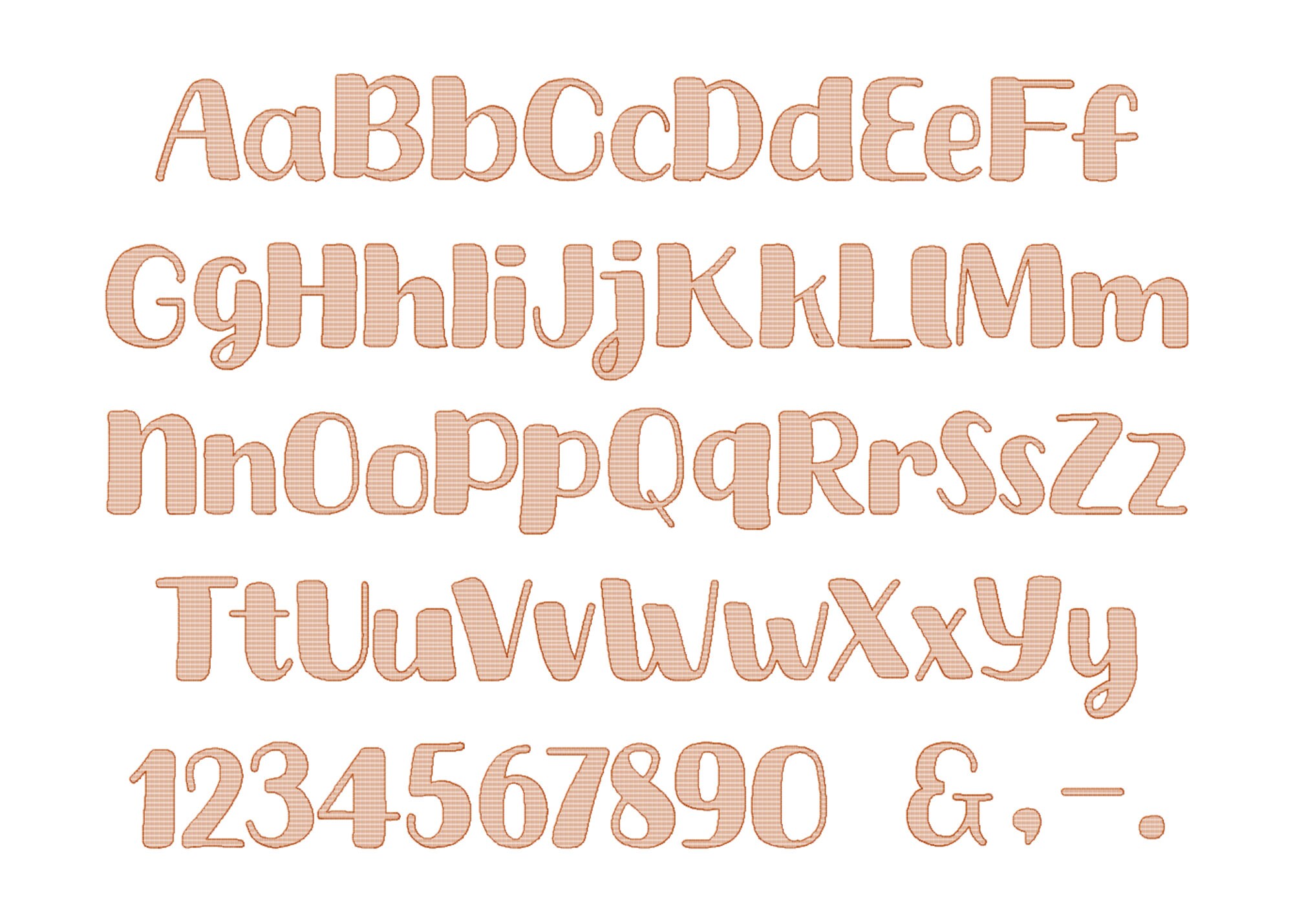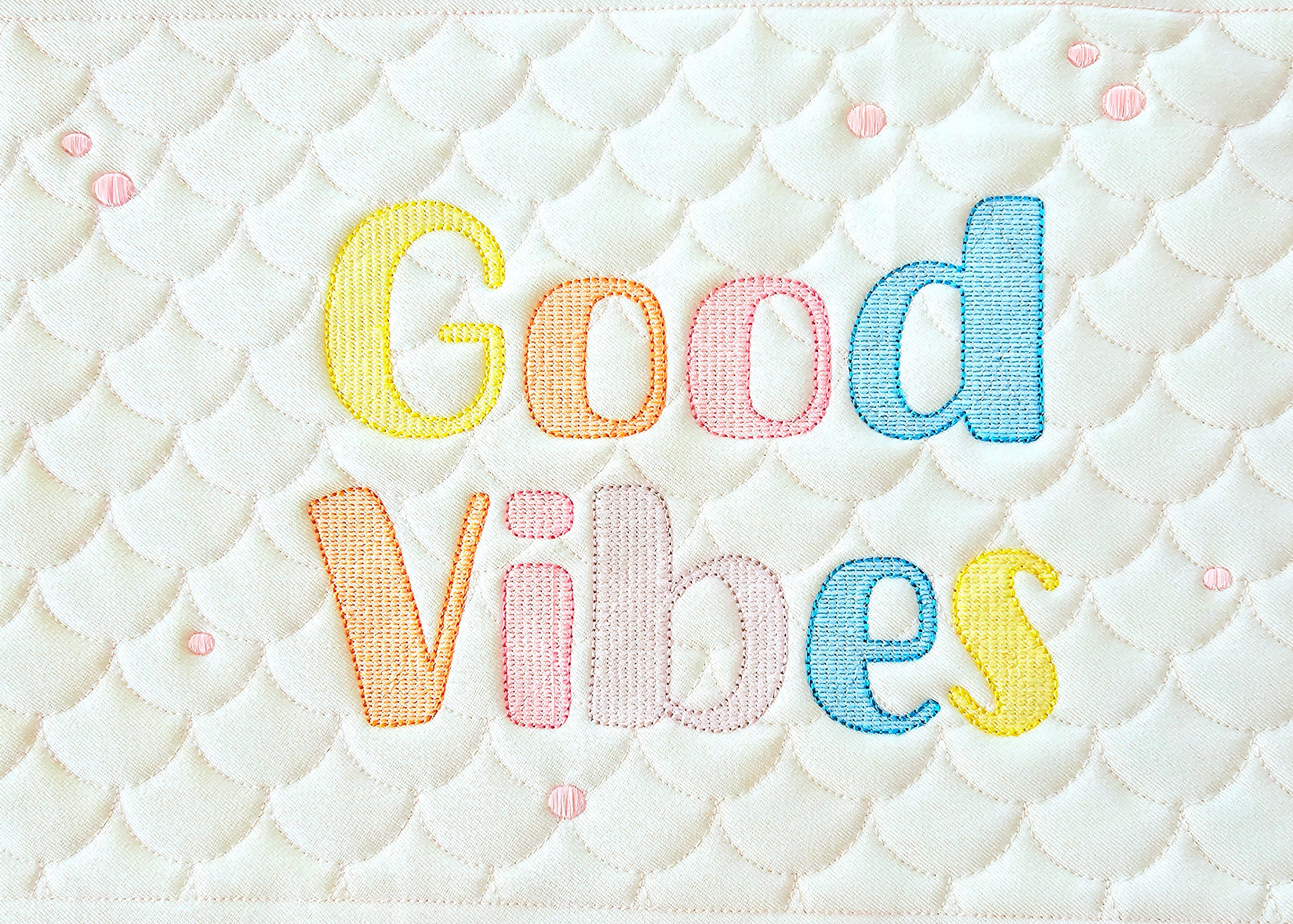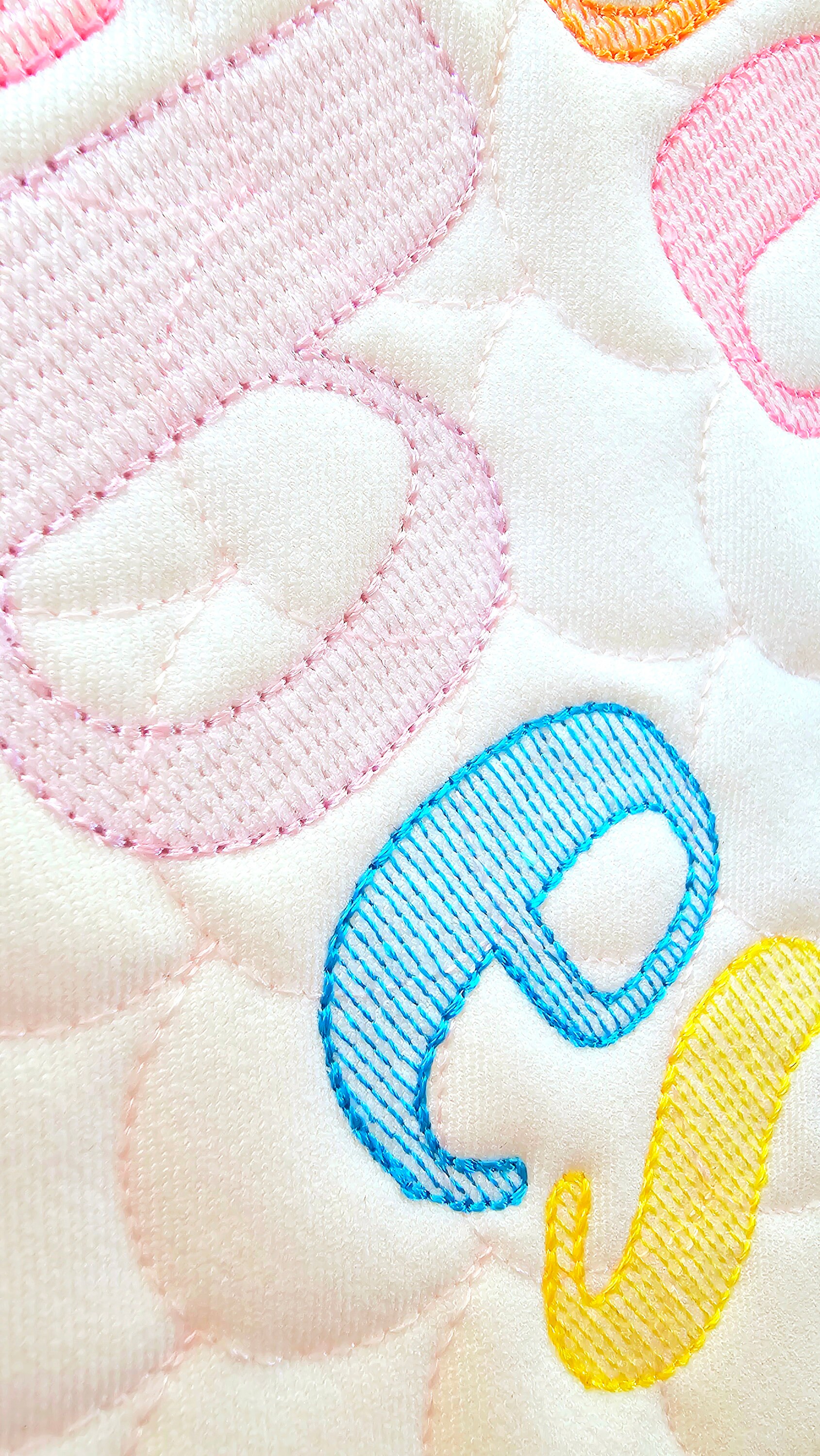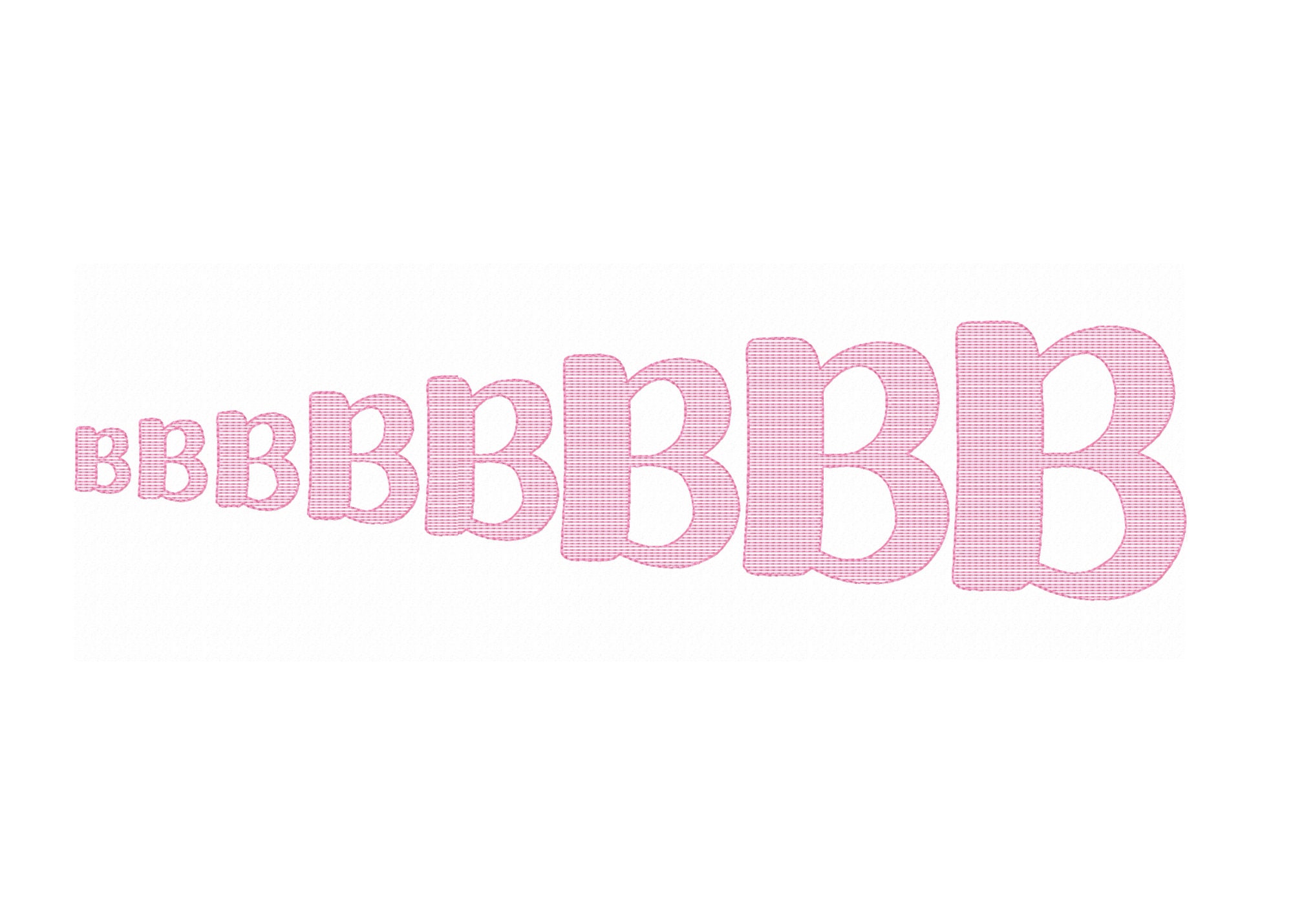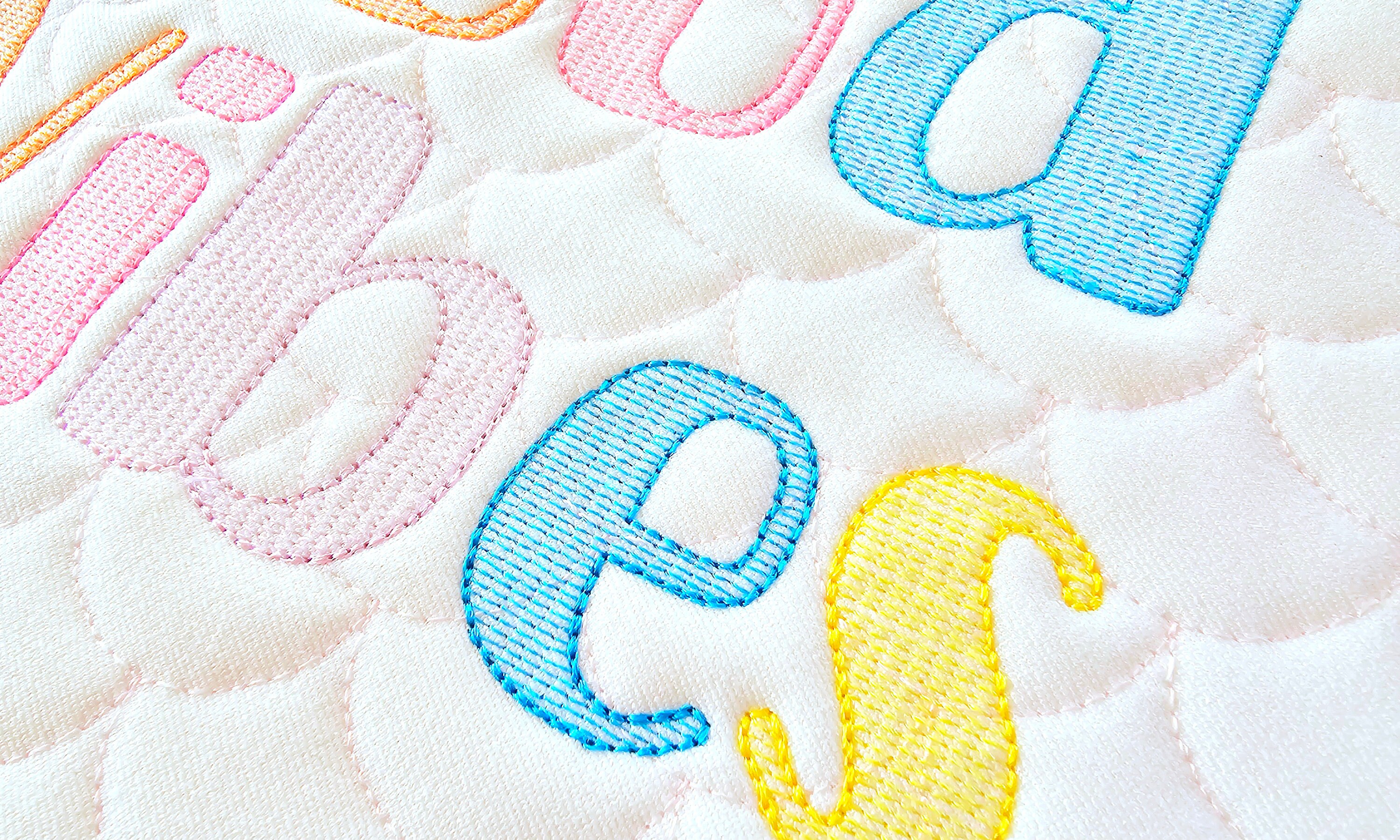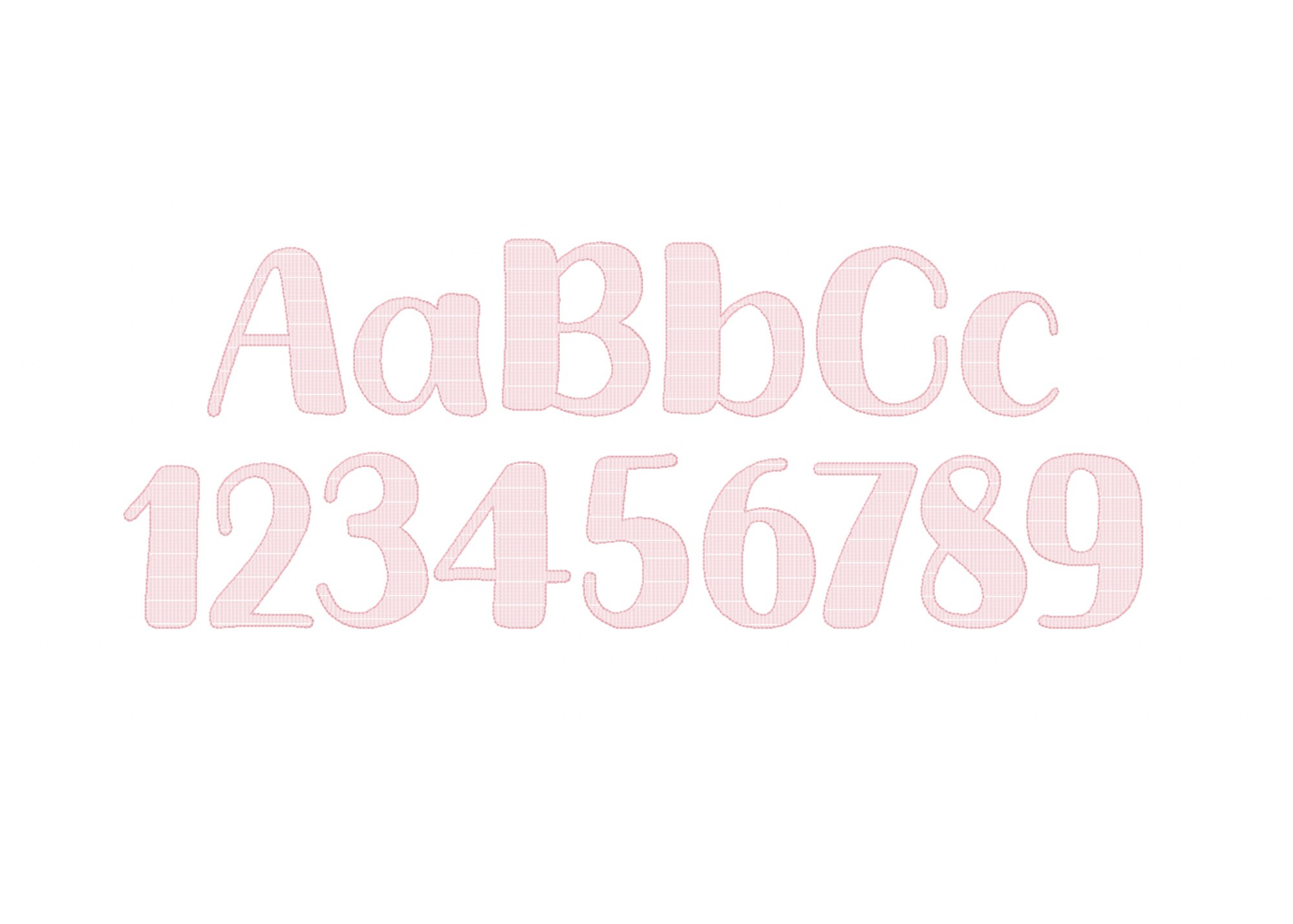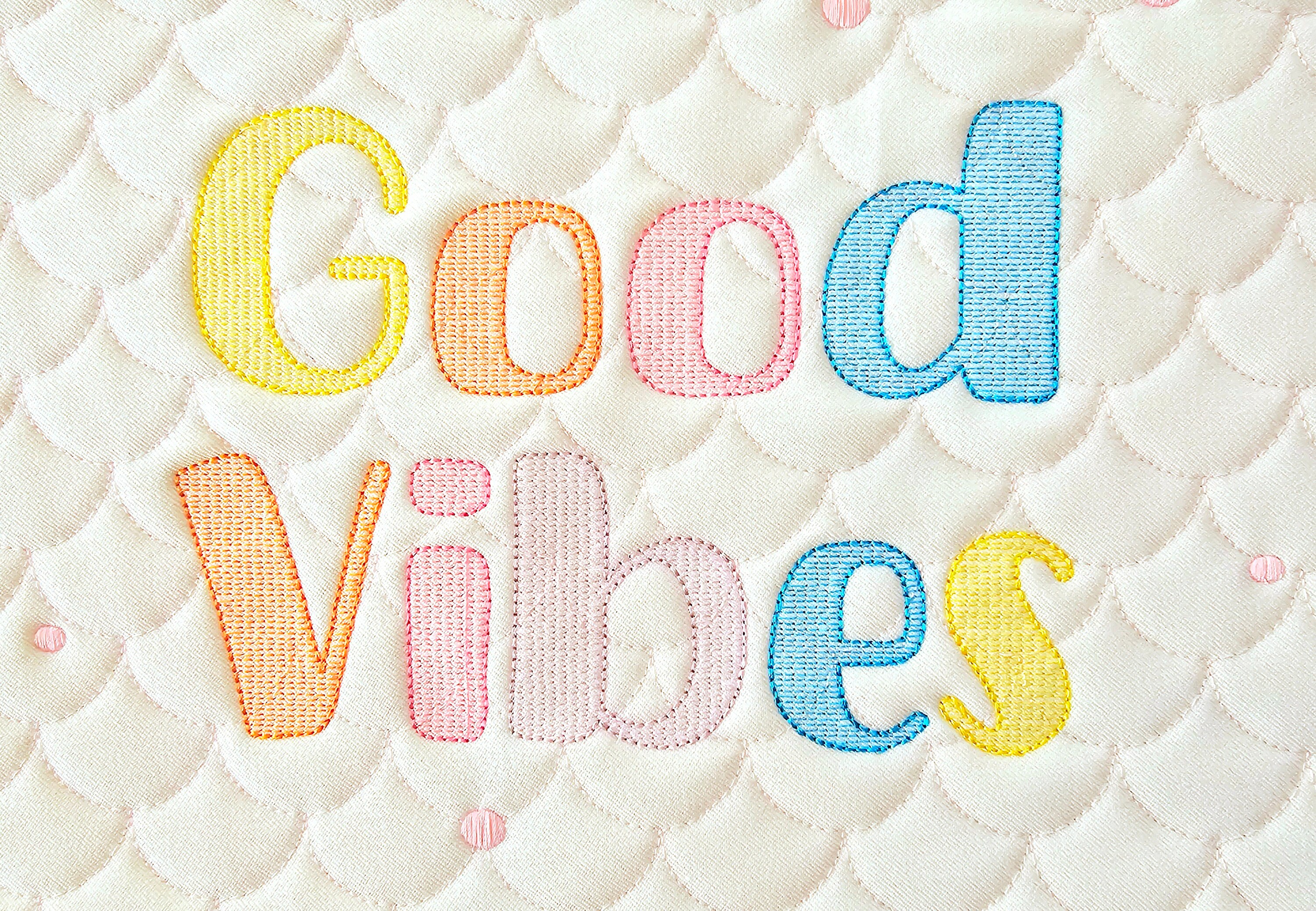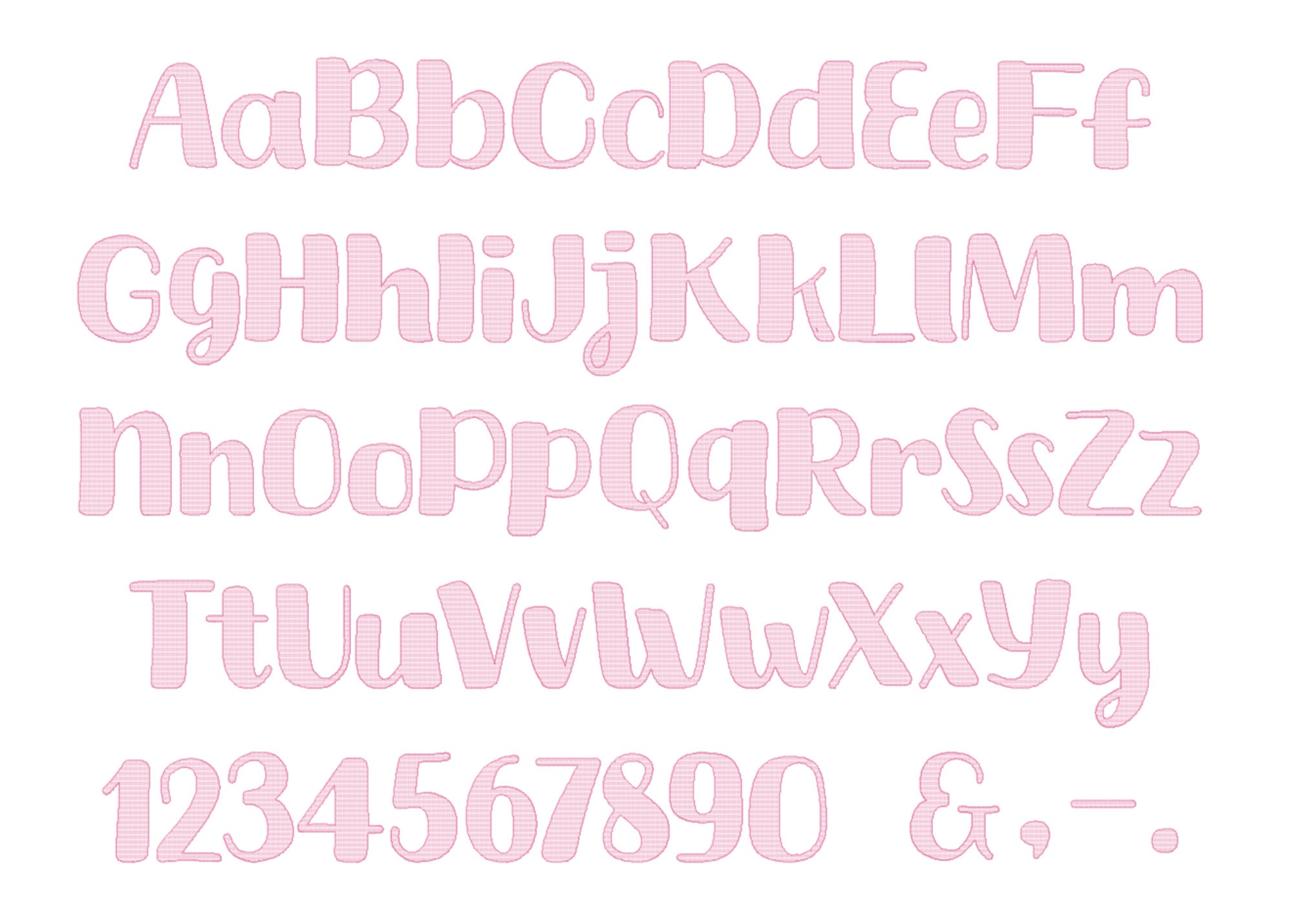
Light Stitch Font alphabet monogram machine embroidery designs multiple sizes 0.8 up to 3.5 inches kids transparent font quick light stitch
Uppercase and lowercase letters Aa-Zz, numbers 0-9, and special marks & . , -
The font is transparent, the background fabric looks through. Stunning effect!
Wunderbare Stickschrift für Handtücher: auch auf Frottee gut lesbar und trotzdem schön weich. Absolute Empfehlung!